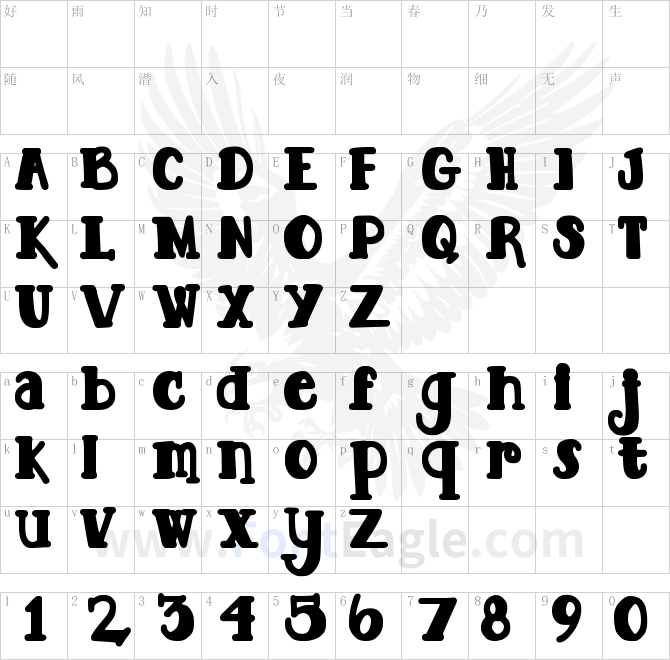
- Font name:DJB TOOTSIE WOOTSIE BOLD
- Font Subfamily ID:DJB TOOTSIE WOOTSIE BOLD Bold:Version 1.00
- Font Full Name:DJB TOOTSIE WOOTSIE BOLD Bold
- Font Version:Version 1.00 February 17, 2011, initial release
- Postscript:DJBTOOTSIEWOOTSIEBOLD-Bold